Choosing the right energetic fonts for fun run posters can make an event feel more exciting before participants even arrive at the starting line. Fun run designs usually need to communicate movement, energy, community, and a sense of celebration. Typography plays a major role in creating that mood.
A successful poster should make the event name, date, location, and registration details easy to notice. At the same time, the font should feel active enough to match running, fitness, and outdoor activities. Bold display fonts, expressive sans serifs, and sporty typefaces often work especially well.
What Fonts Work Best for Fun Run Posters?
The best fun run fonts usually have strong visual presence, clear letterforms, and enough personality to stand out from photos, gradients, or colorful backgrounds.
Use Bold Display Fonts for Main Headlines
Fun run posters often use short, high-impact phrases such as “Run for Fun,” “5K Color Run,” or “Move Together.” A bold display font can help these headlines feel energetic and memorable. The headline should be easy to read from a distance, especially if the poster will be printed or shared in crowded social feeds.
Keep Supporting Information Simple
The event date, route, registration link, and contact information should use a cleaner supporting font. This keeps the poster visually exciting without making important details difficult to scan. A strong headline paired with a readable sans serif usually creates the best balance.
Best Energetic Fonts for Fun Run Posters
Here are several font options that can support different fun run styles, from playful and colorful to bold and sporty.
Gafhote
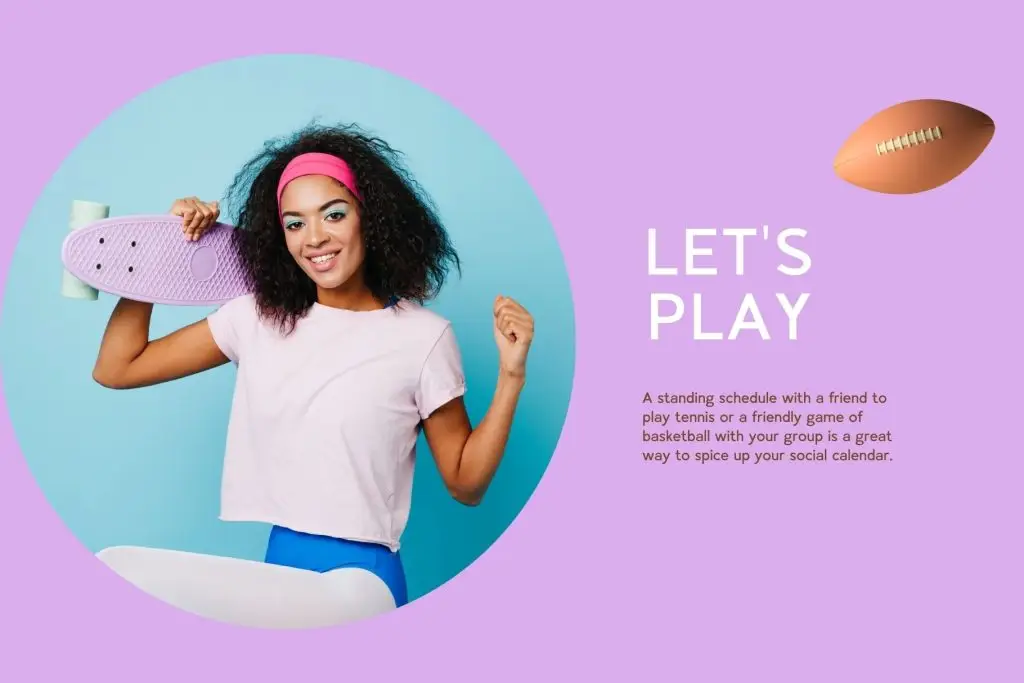
Fistalle
Shaqera
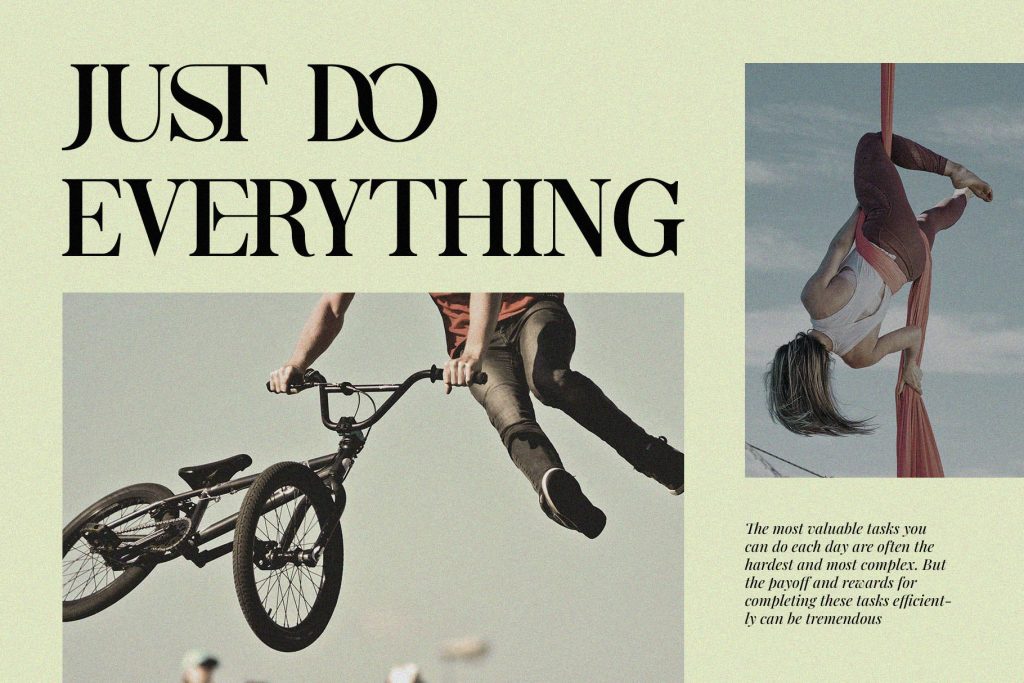
Jacob’s
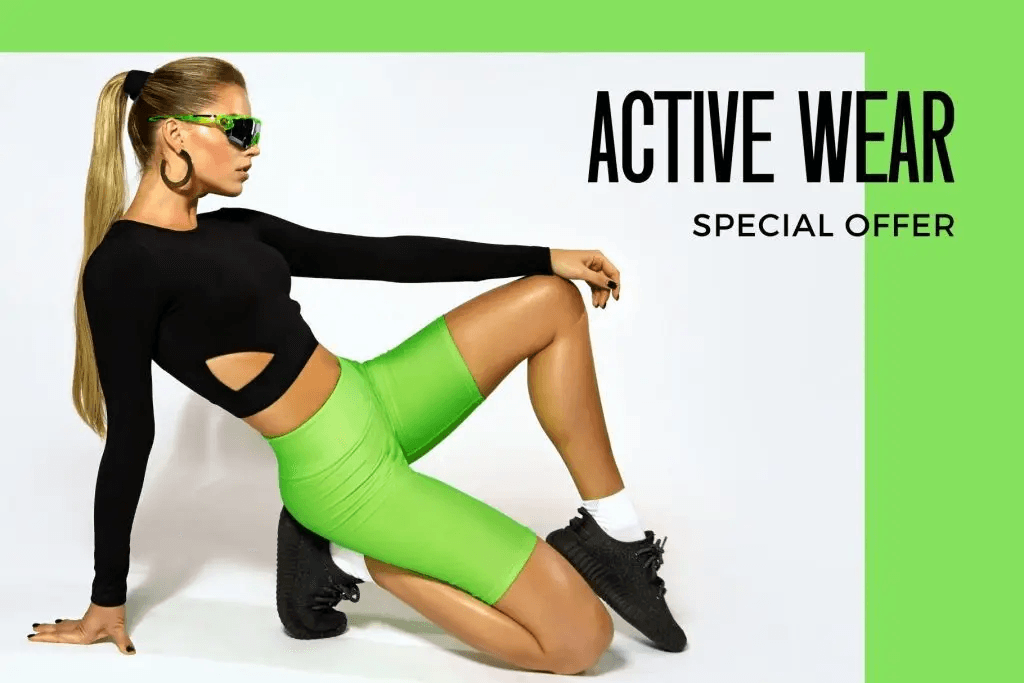
Roncek
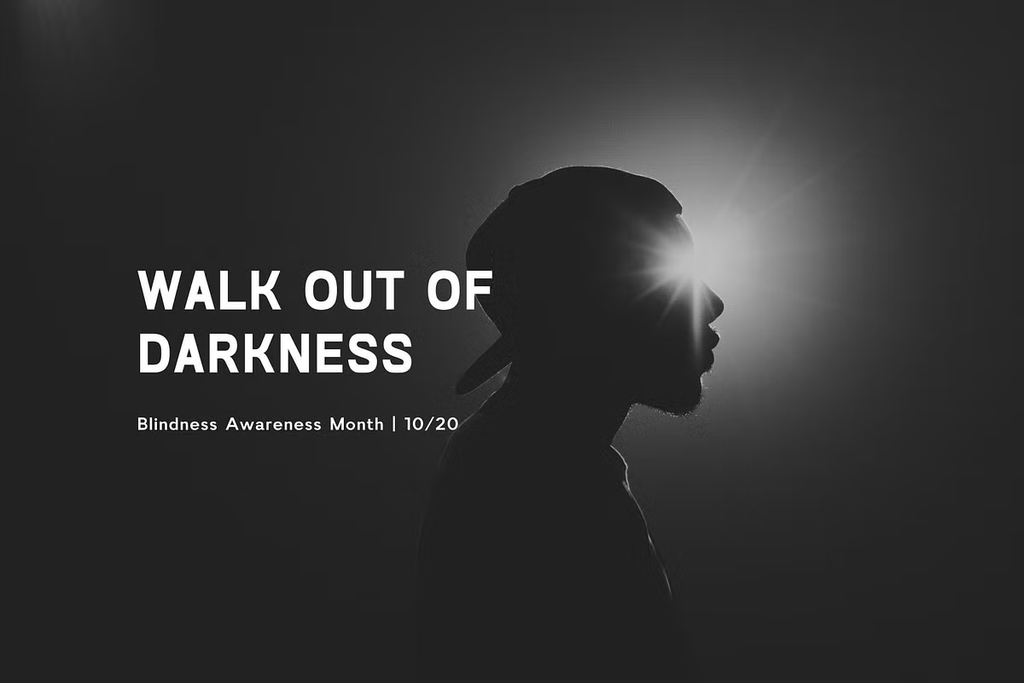
Spektra
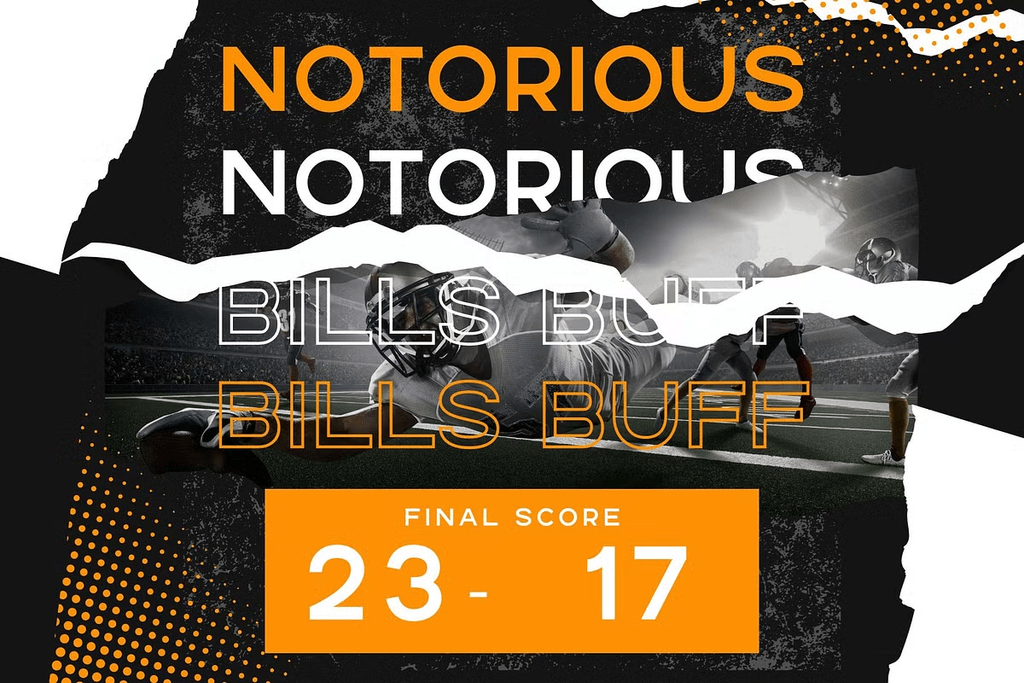
Flamengo
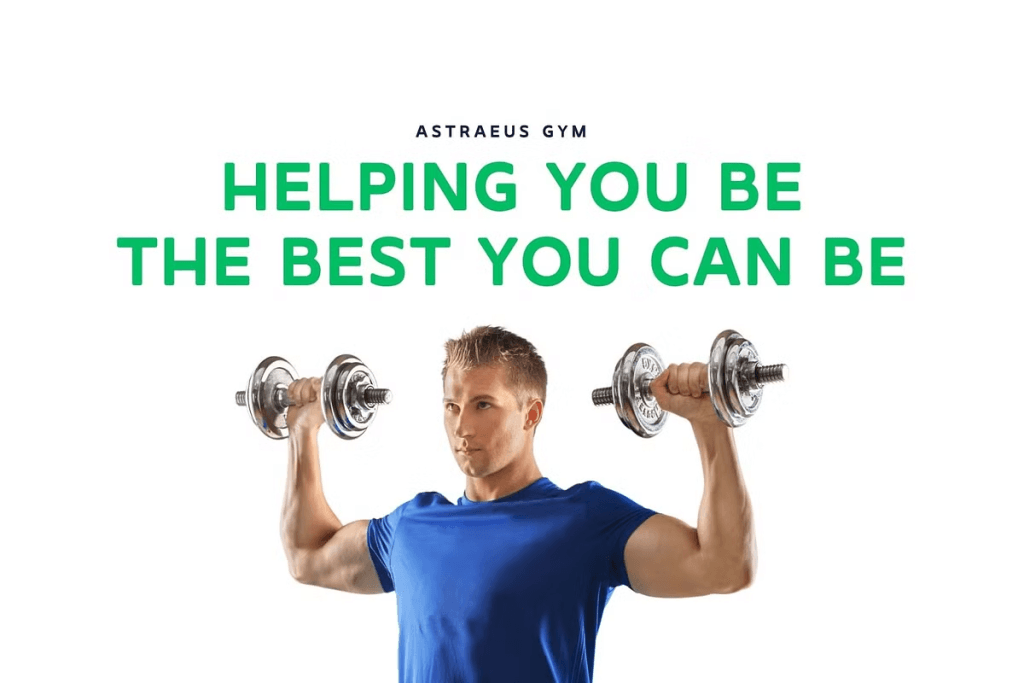
How to Build Better Typography for a Fun Run Poster
A strong font choice should be supported by clear hierarchy and good spacing.
Make the Event Name the Main Focus
Use the largest and most distinctive font for the event title. This is the first thing people should notice. Then create a second level for the date and location, followed by smaller registration details.
Use Contrast to Suggest Movement
You can make the design feel more active through size differences, diagonal text, layered typography, or strong alignment. However, avoid adding too many effects at once. The font should remain readable even when the layout feels dynamic.
Match the Font With the Event Style
A color run can use playful fonts and bright palettes. A charity run may need a friendlier and more community-focused look. A performance-oriented 10K can use bolder and more structured sports typography.
You can customize the template with one of the recommended fonts above to make it feel more distinctive. For example, use Shaqera or Spektra for the headline, then keep the schedule and registration details in a clean sans serif. This approach gives you a ready-to-edit structure while still allowing the typography to match the personality of the event.
Conclusion
The right typography can make a fun run poster feel active, inviting, and easy to understand at a glance. Focus on a bold headline, clear supporting information, strong contrast, and a visual hierarchy that reflects the energy of the event. By balancing expressive typography with readability, you can create a poster that attracts attention, communicates key details quickly, and encourages more people to join the run.